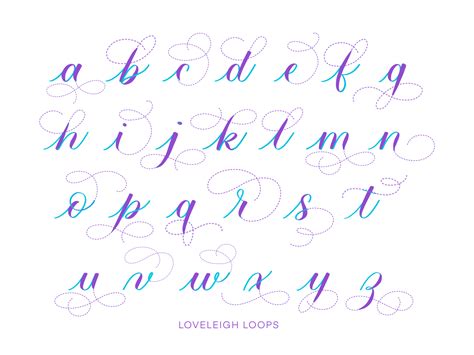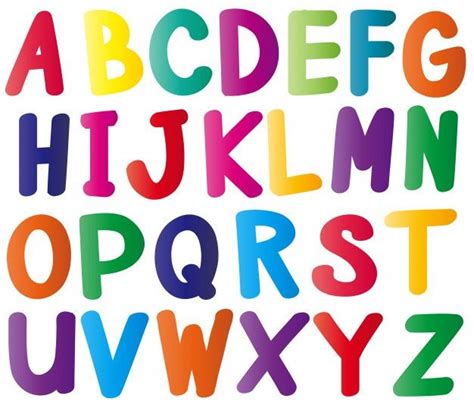
What is Alphabet 2 Font?
The term "alphabet 2 font" is often used to refer to fonts that offer a unique twist on the classic alphabet, featuring decorative elements, stylized letters, or variations in design. These fonts can inject personality and visual appeal into any project, whether it's a logo, website, graphic design, or even printed materials.
Alphabet 2 fonts are highly sought after for their ability to differentiate a project from the ordinary. They can be used to create a bold statement, convey a specific mood, or simply add a touch of elegance.
Why Use Alphabet 2 Fonts?
Beyond their aesthetic appeal, alphabet 2 fonts offer several practical advantages:
- Enhanced Brand Identity: A unique alphabet 2 font can reinforce a brand's identity and make it instantly recognizable.
- Improved Readability: While some alphabet 2 fonts might be decorative, others are designed with readability in mind, ensuring that your text remains clear and engaging.
- Creative Expression: Alphabet 2 fonts allow you to explore different creative avenues, experimenting with diverse styles to match your project's theme and tone.
- Stand Out From the Crowd: In a world saturated with countless fonts, alphabet 2 fonts help you break free from the conventional and make your work stand out.
Finding the Perfect Alphabet 2 Font
The journey to finding the perfect alphabet 2 font begins with understanding your project's needs. Ask yourself these questions:
- What is the purpose of your project?
- What is the target audience?
- What emotions or messages do you want to convey?
Once you have a clear understanding of your project's requirements, you can begin exploring the vast world of alphabet 2 fonts.
When downloading free fonts, it's crucial to pay attention to the license agreement. Some fonts might have usage restrictions, so make sure you understand the terms before using them in commercial projects.
Premium Alphabet 2 Font Options
If you're looking for a truly unique and exclusive alphabet 2 font, exploring premium options might be the way to go. Paid fonts often offer higher quality, unique designs, and greater creative control.
Here are some popular platforms where you can find premium alphabet 2 fonts:
- Creative Market: Creative Market is a hub for design assets, including fonts, graphics, templates, and more. It offers a curated collection of premium alphabet 2 fonts from independent designers.
- MyFonts: MyFonts boasts a vast library of premium fonts from renowned designers and foundries. It allows you to browse by category, style, and designer, ensuring that you find the perfect font for your project.
- FontShop: FontShop is a leading online retailer of high-quality fonts, offering a curated collection of premium alphabet 2 font options. It provides detailed information about each font and offers various purchasing options.